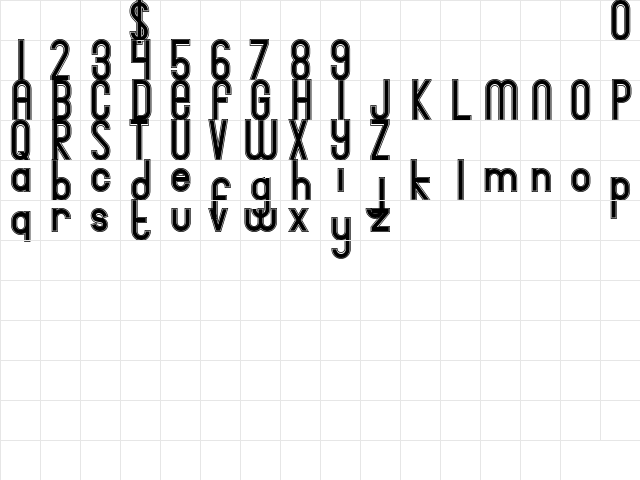
Bingke Susu DEMO Regular Font Preview
Bingke Susu DEMO Regular
Bingke Susu DEMO Regular Font Details
Design Context for Bingke Susu DEMO Typeface
Bingke Susu DEMO takes a measured approach to typography — its balanced proportions and neutral character make it a reliable workhorse for both digital and print work.